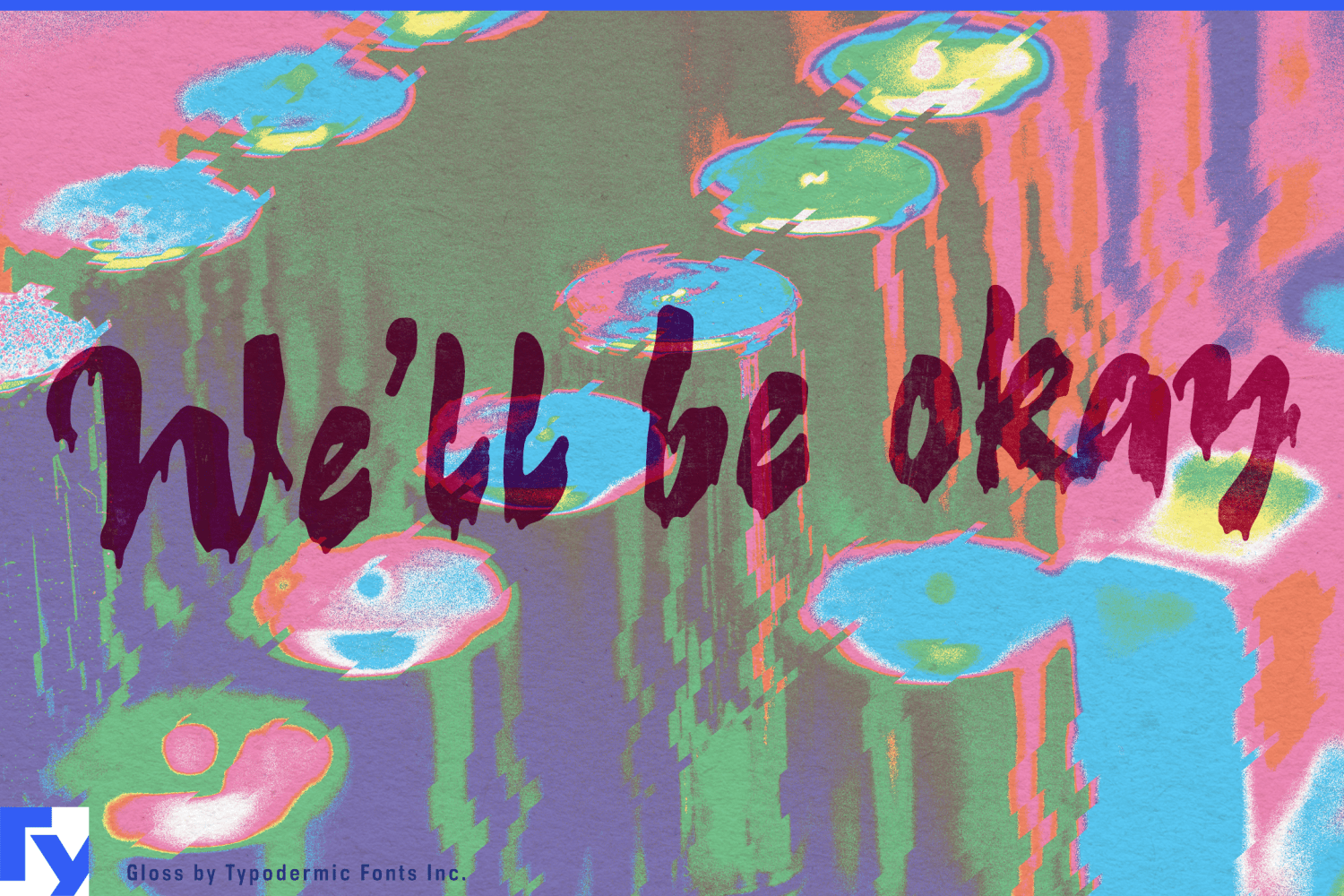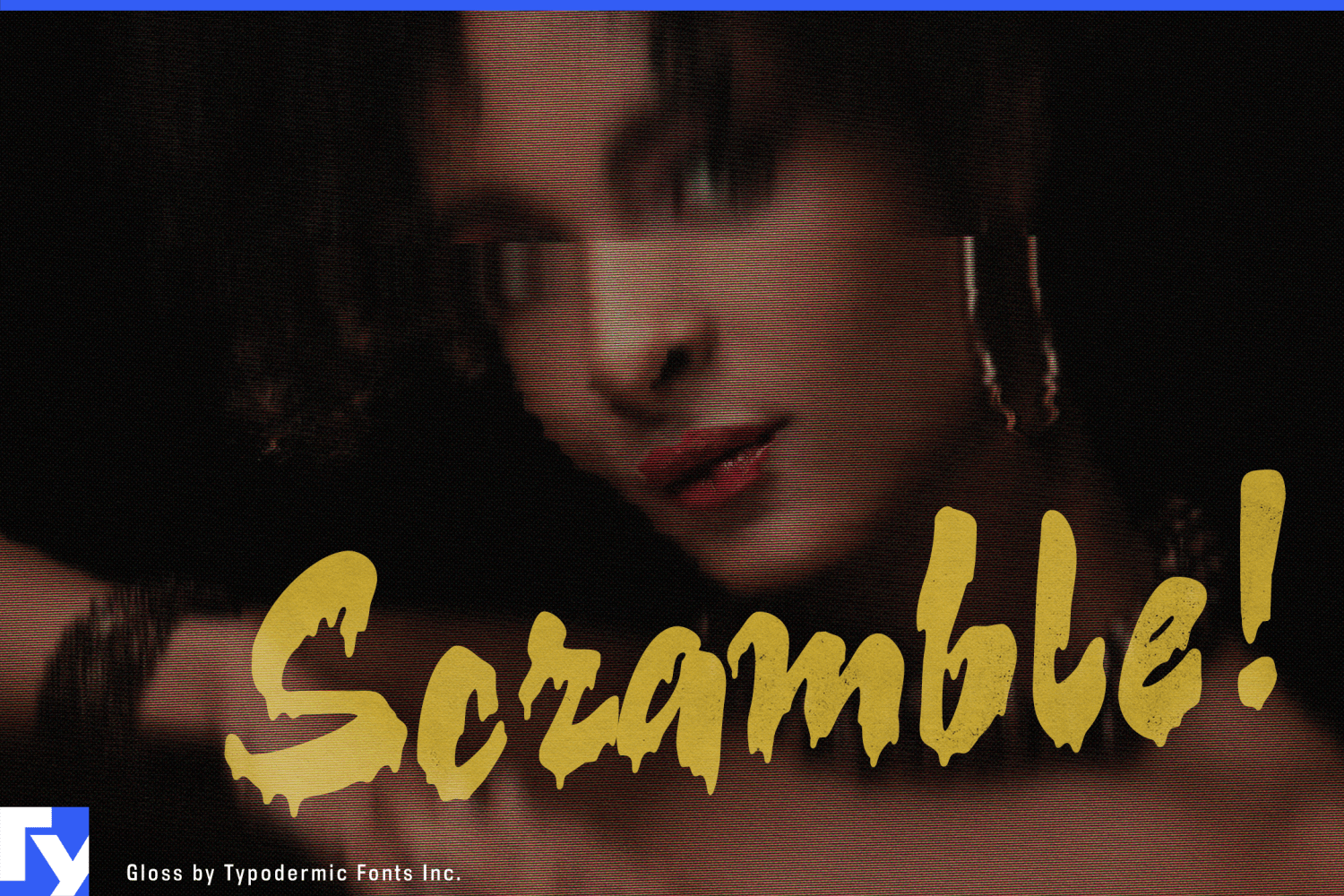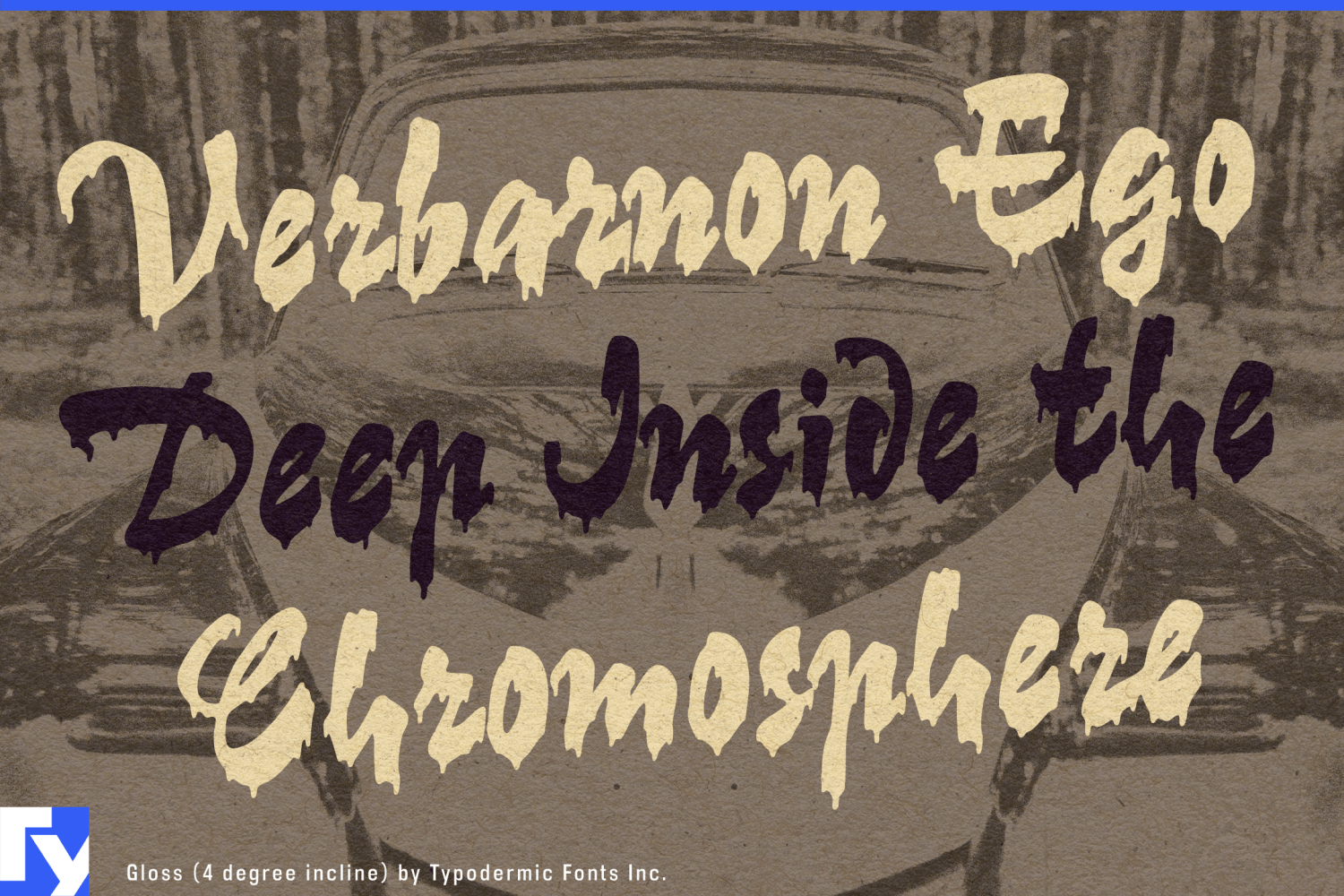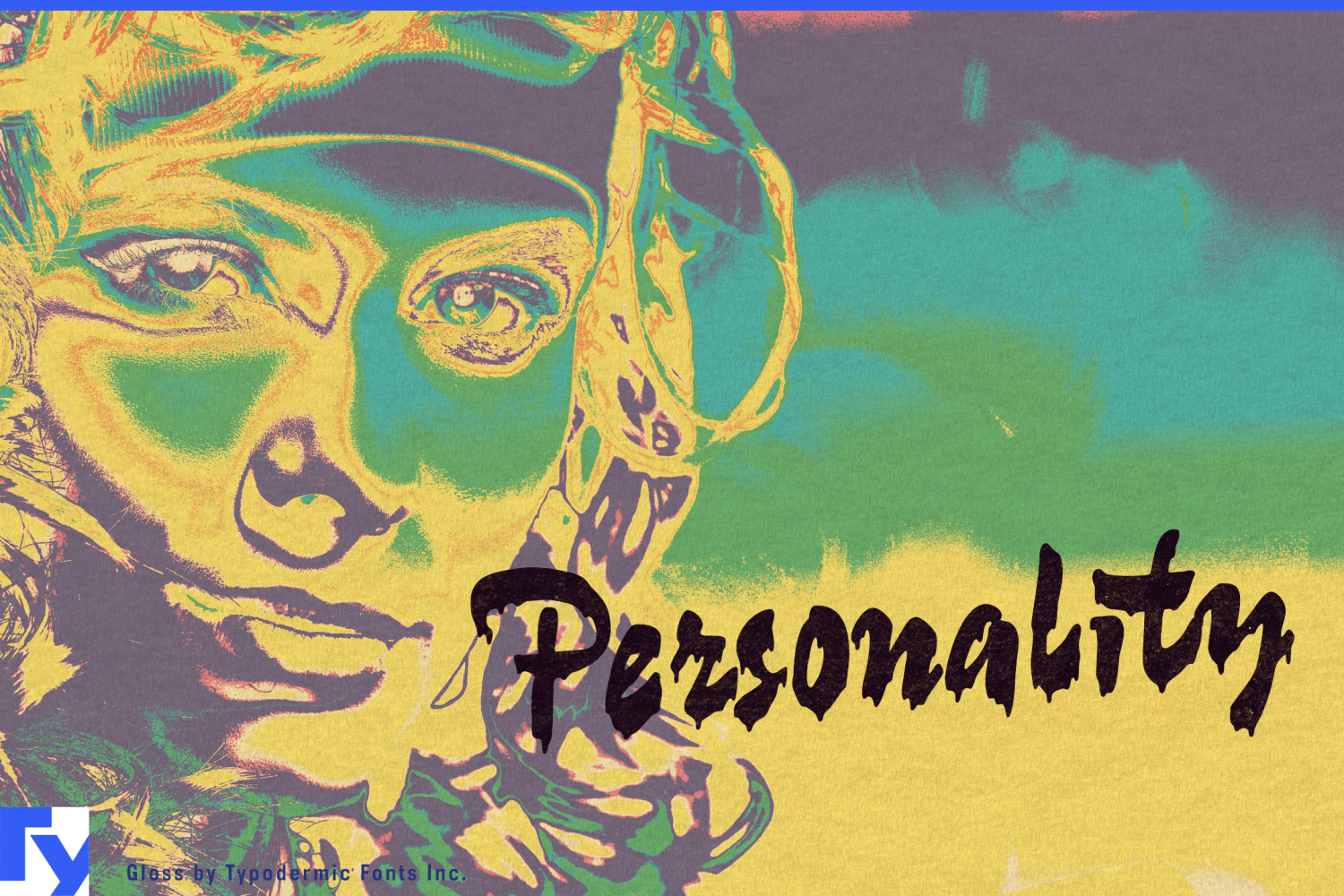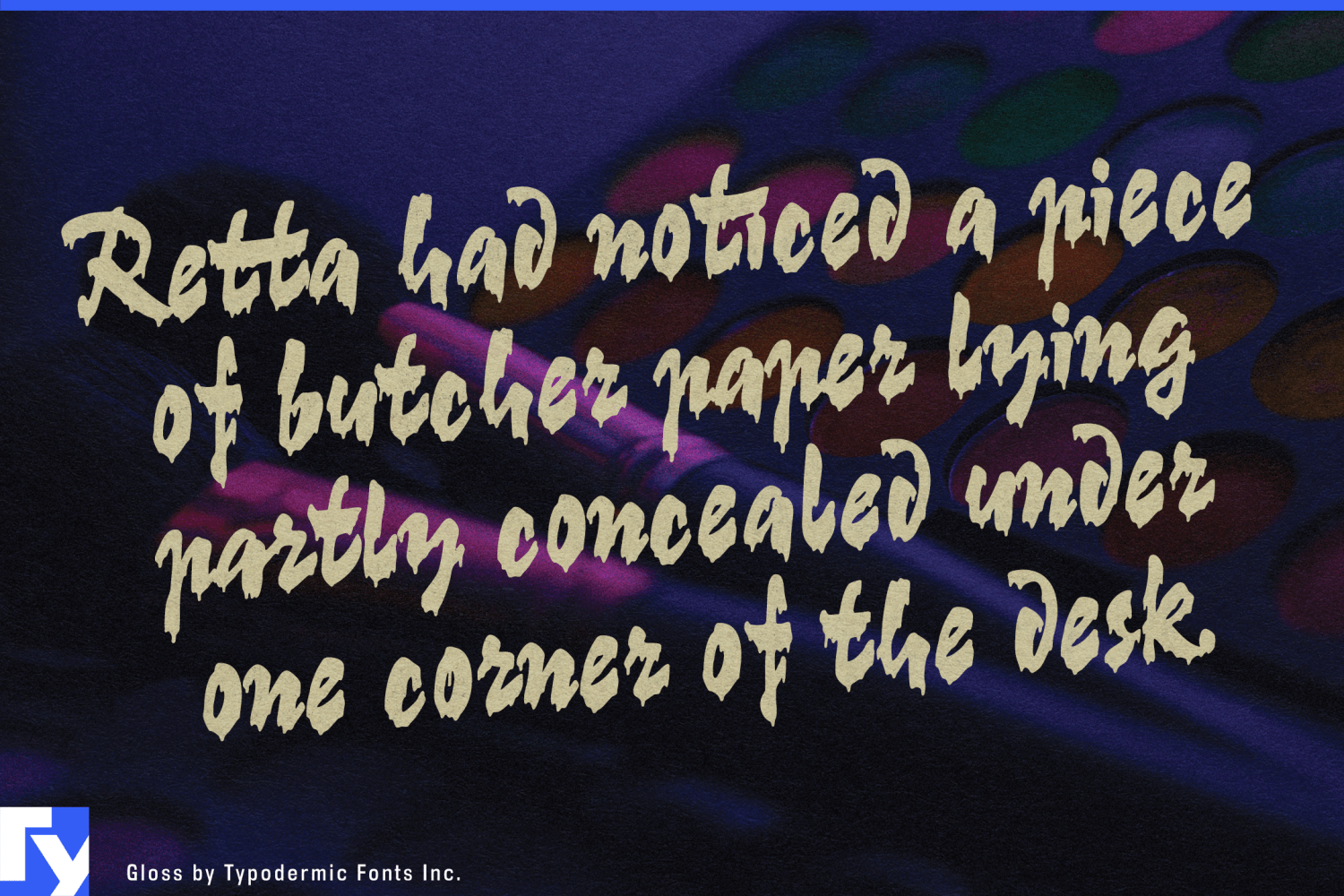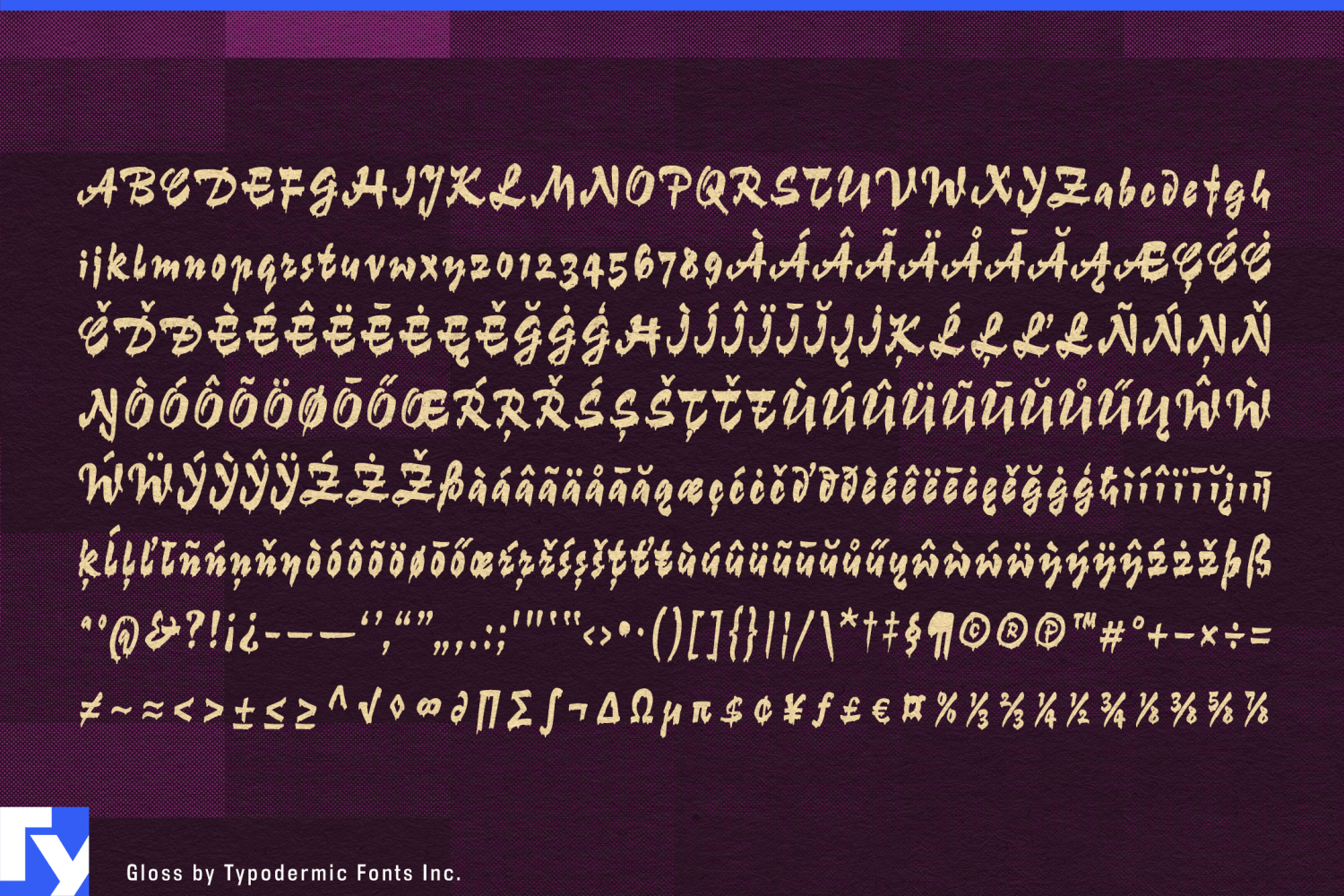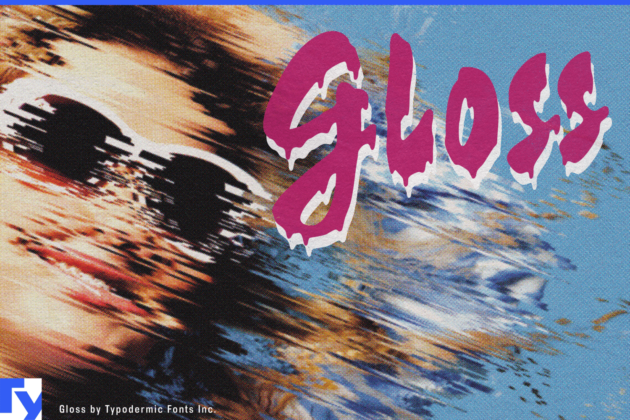
About Gloss
Get ready to set the typographic world on fire with Gloss—a font that doesn’t just break the rules, it spray-paints them neon and hangs them in a gallery. This is a rebellious love child of ’50s metal and ’80s punk, raised on a…